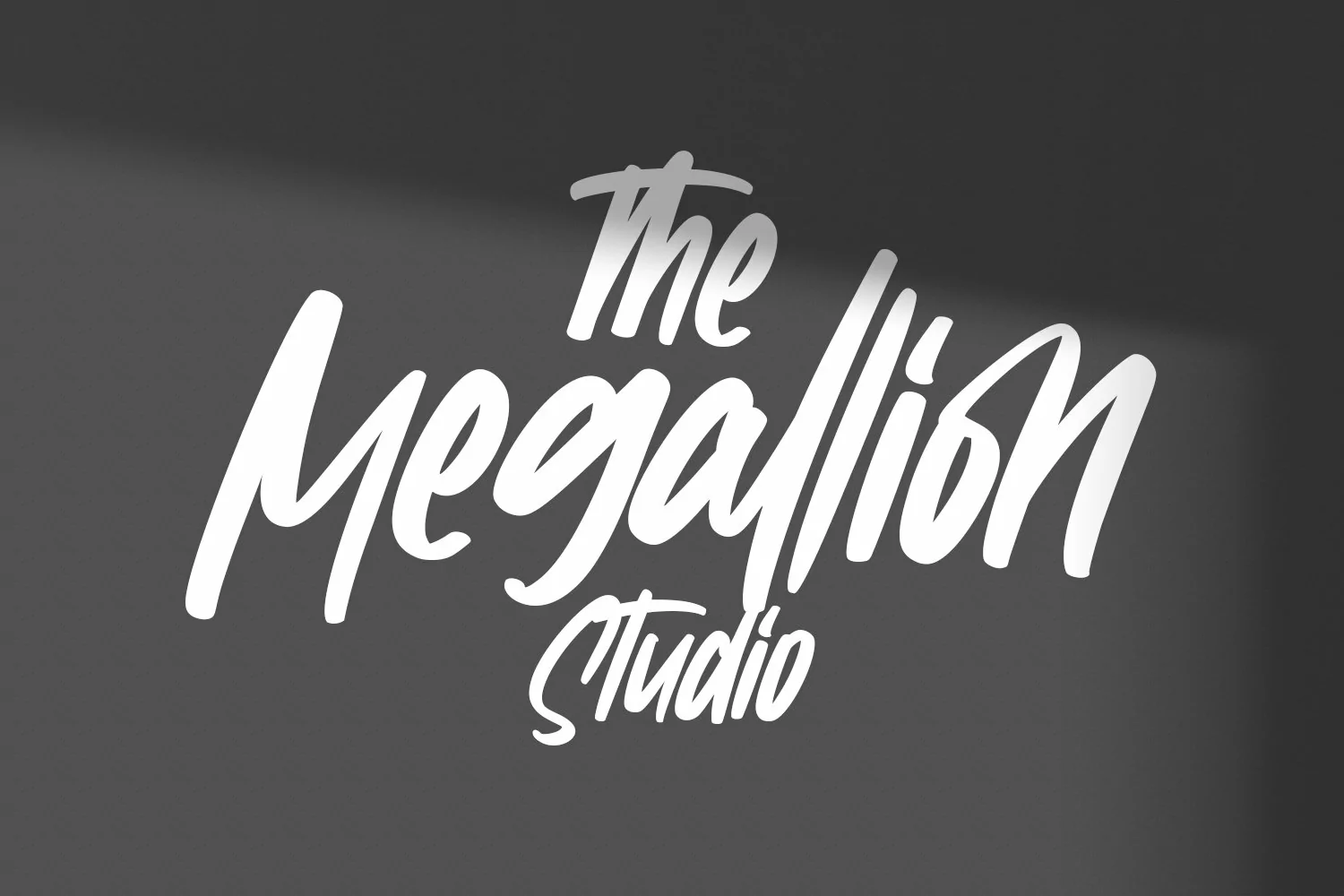
Superfurry is a casual hand-written font. With regular contrast stroke, fun character with some of ligatures. To give you an extra creative work. Superfurry font support multilingual more than 100+ language. This font is good for logo design, Social media, Movie Titles, Books Titles, a short text even a long text letter and good for your secondary text font with sans or serif. Make a stunning work with Superfurry font.
Superfurry